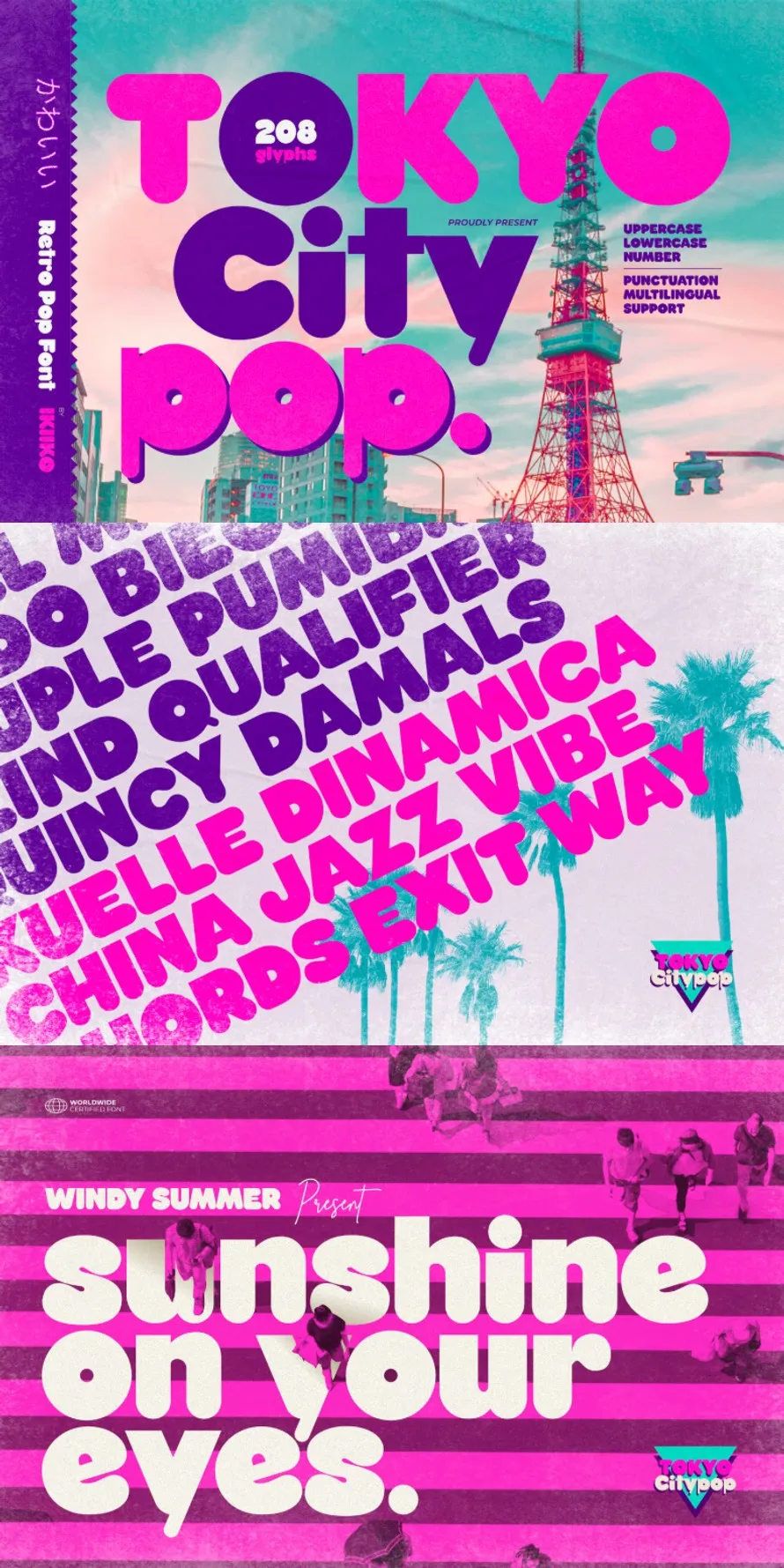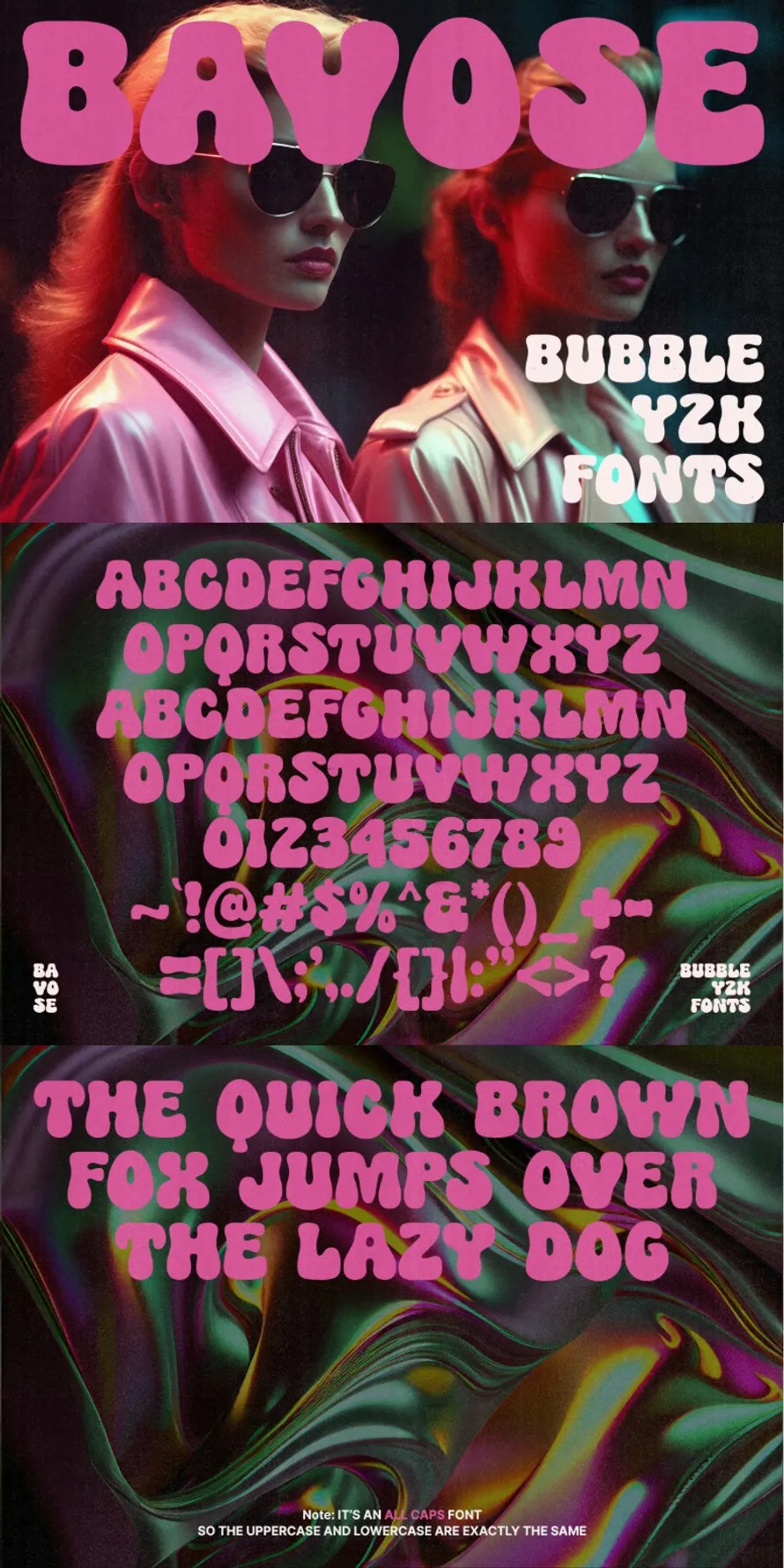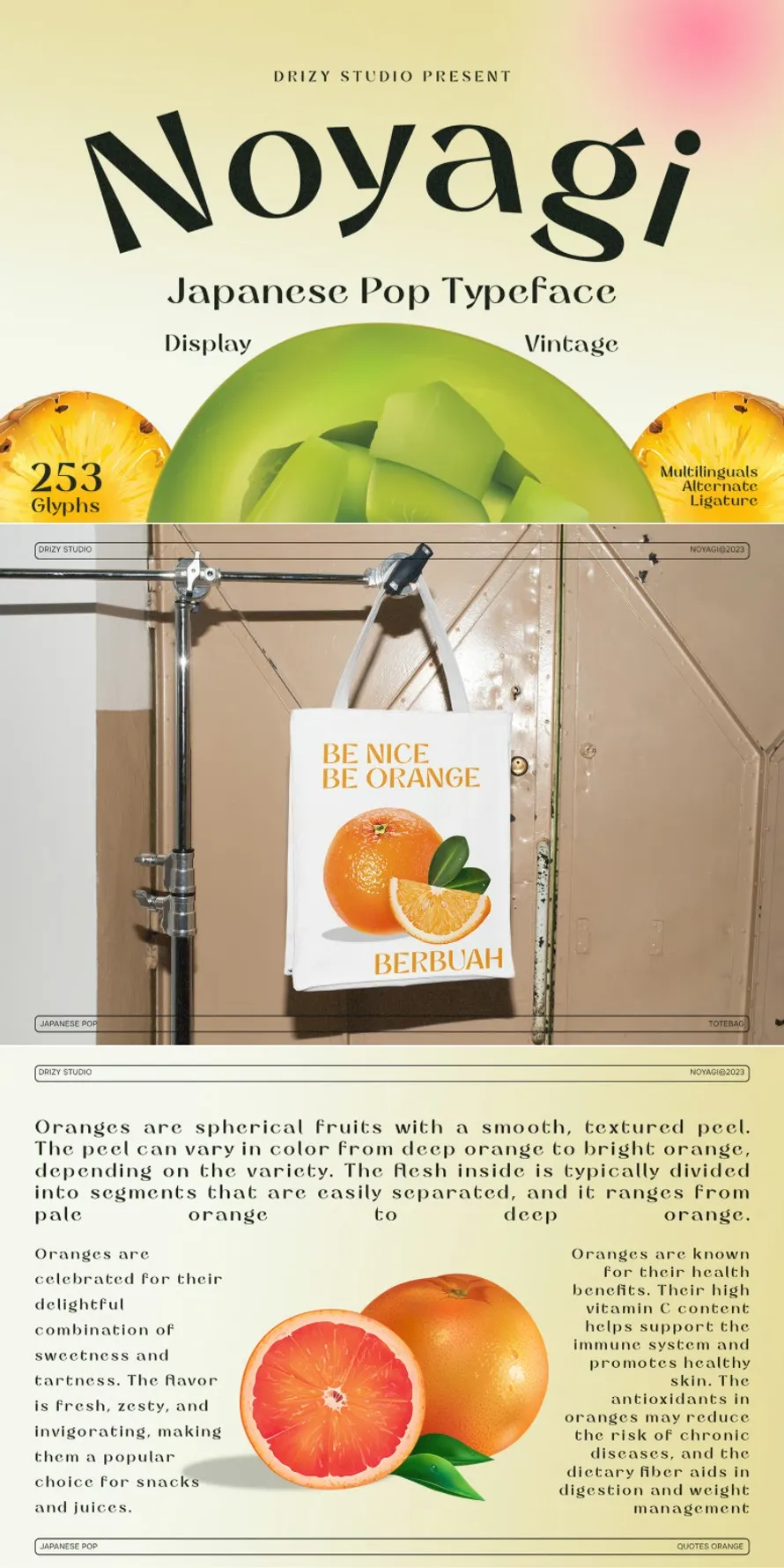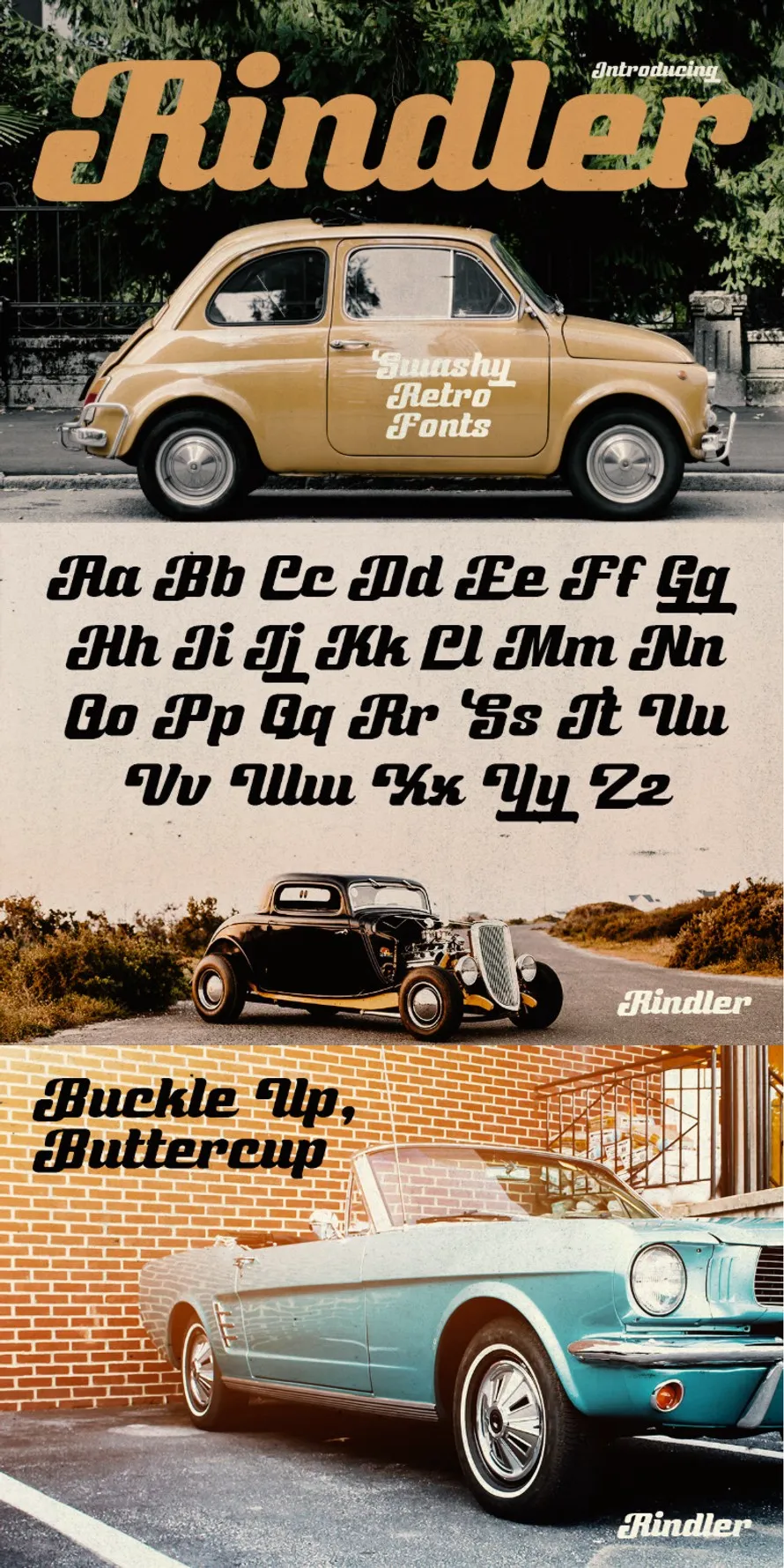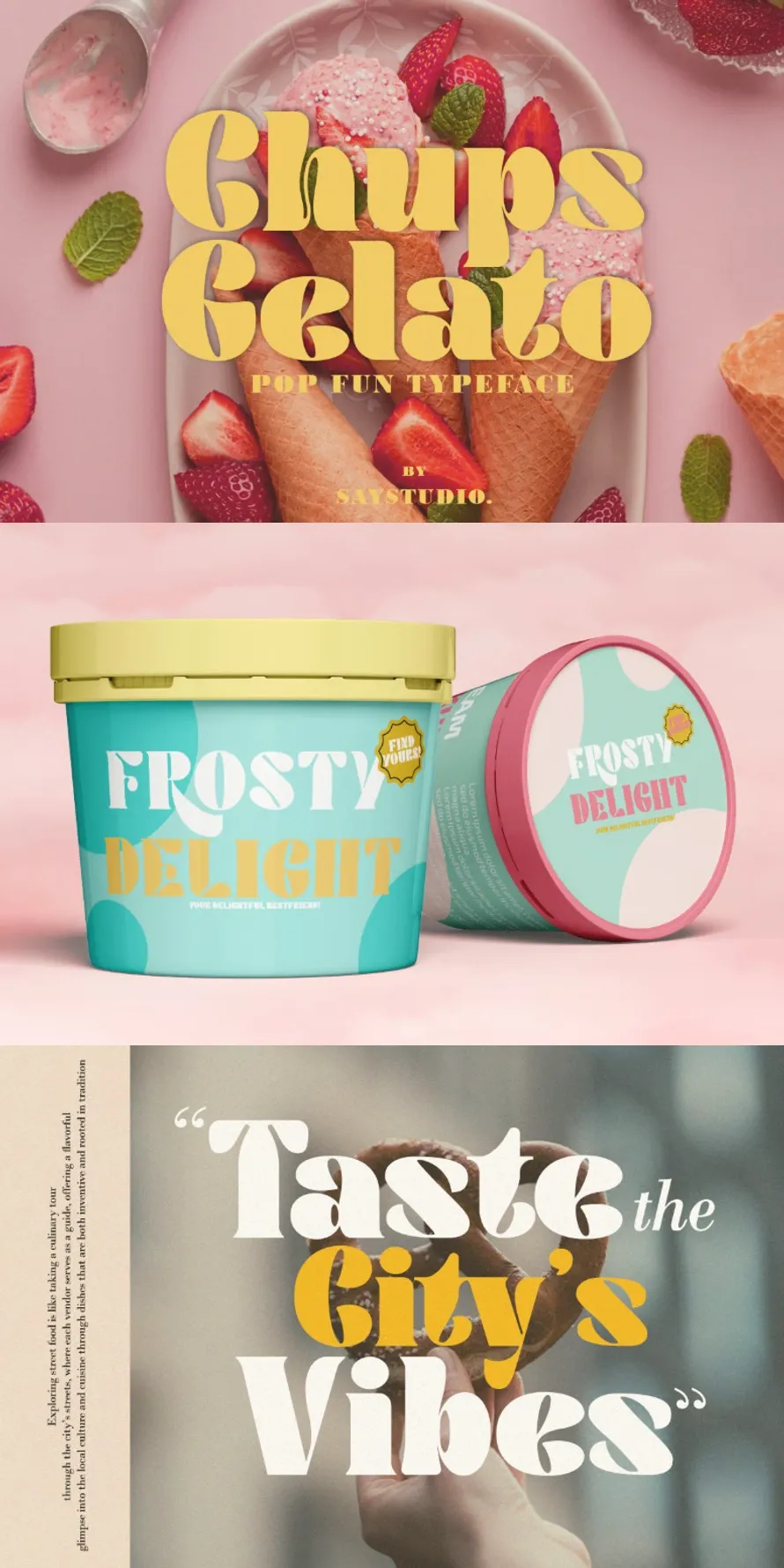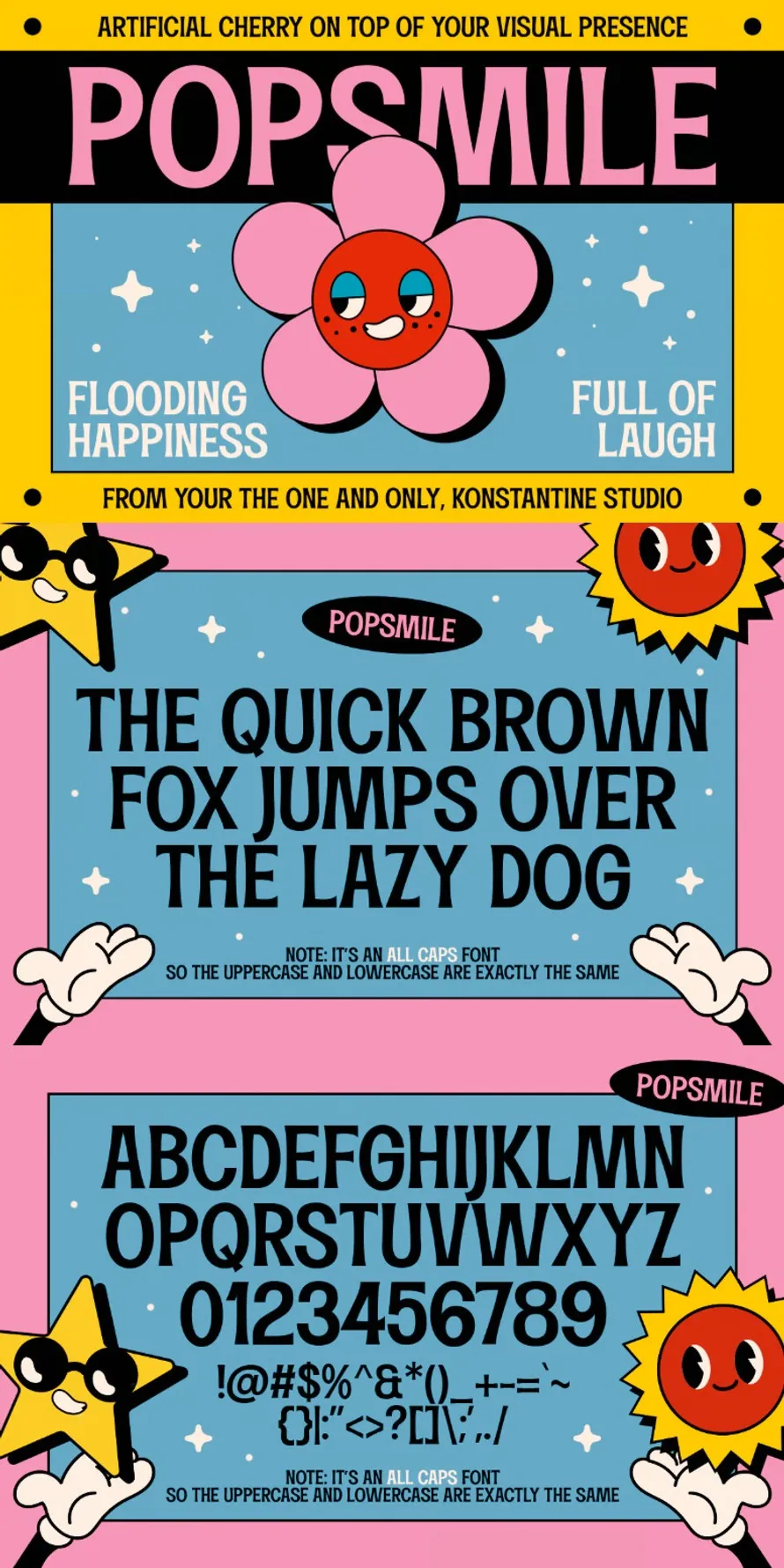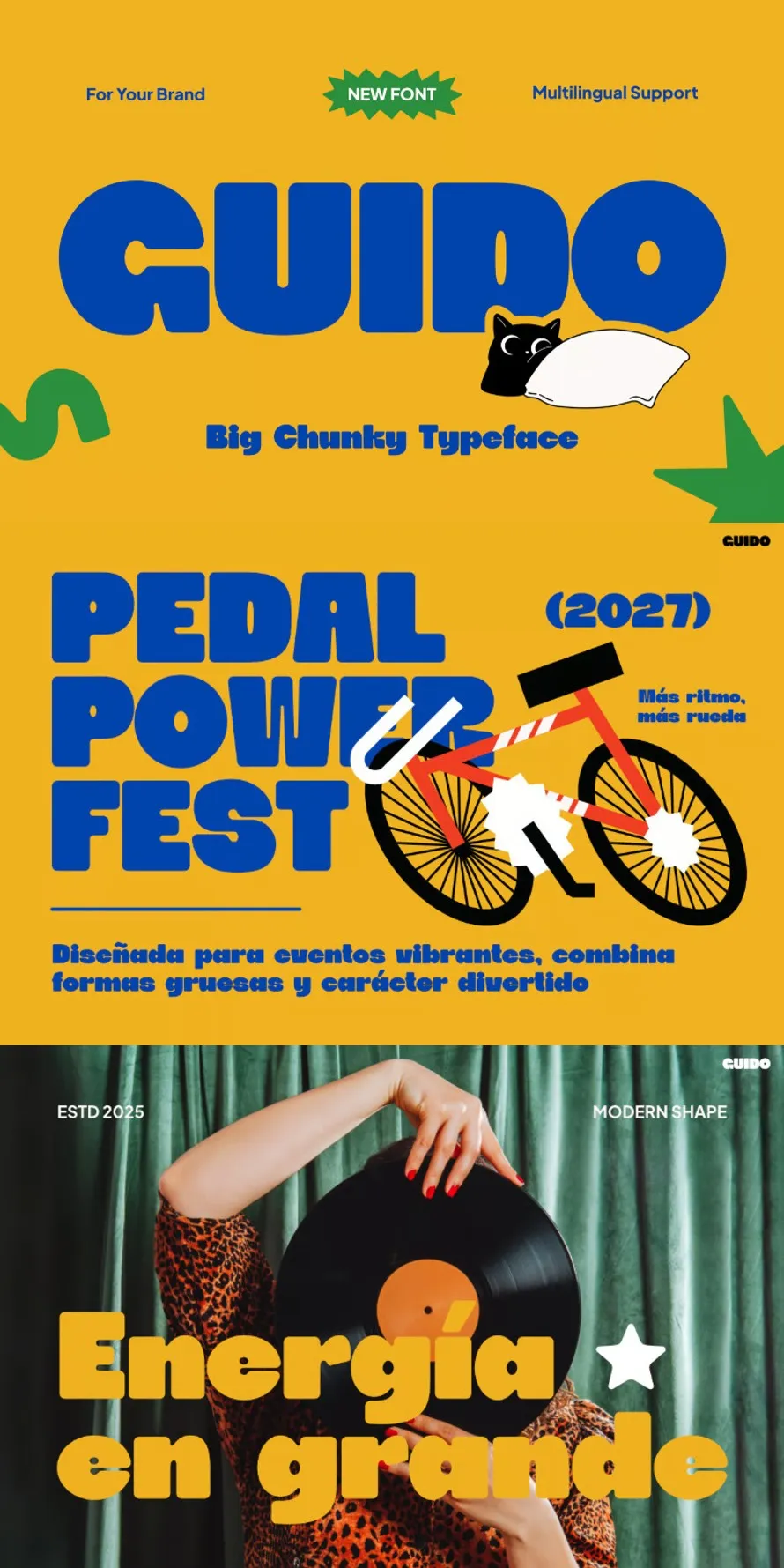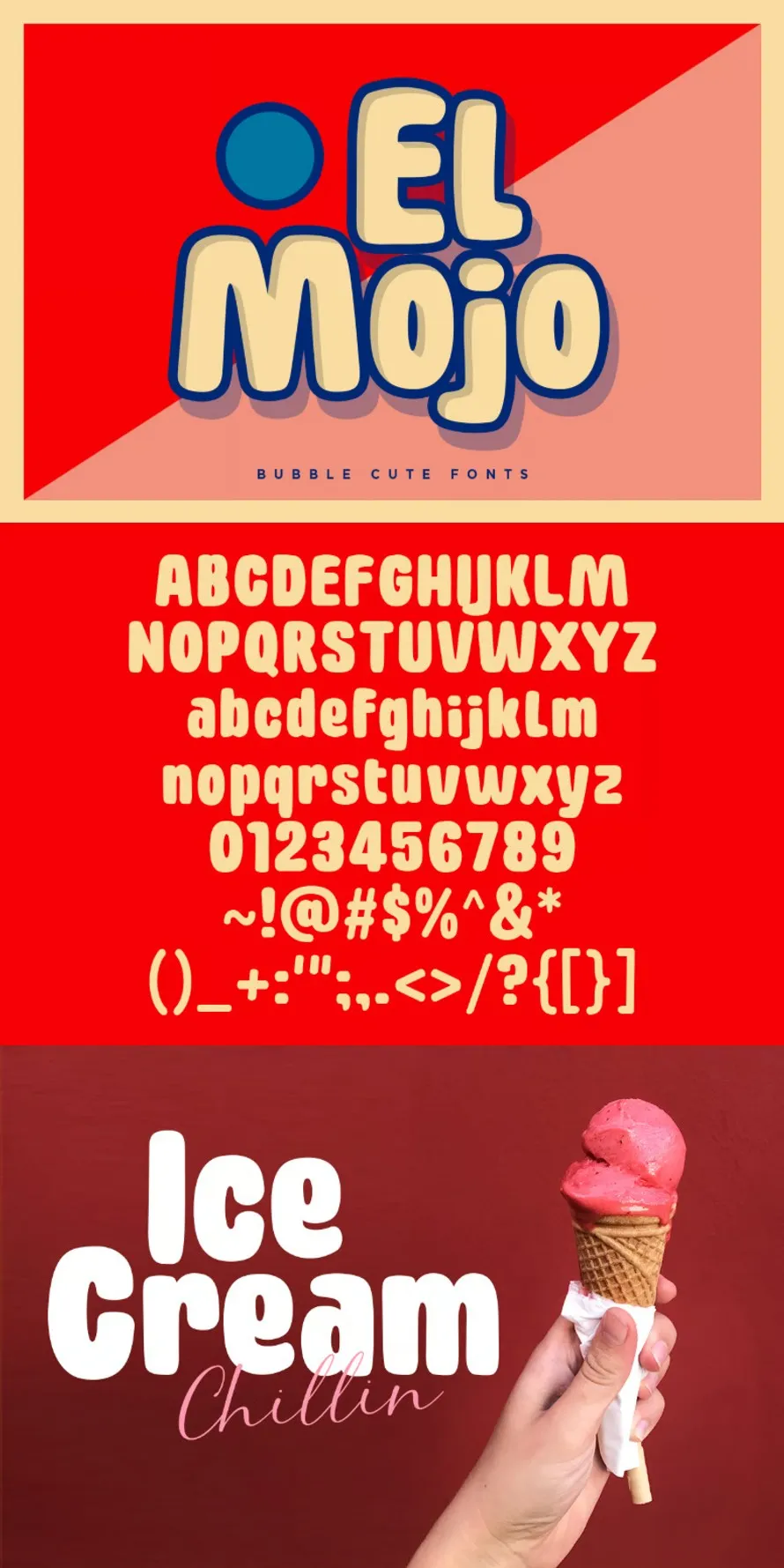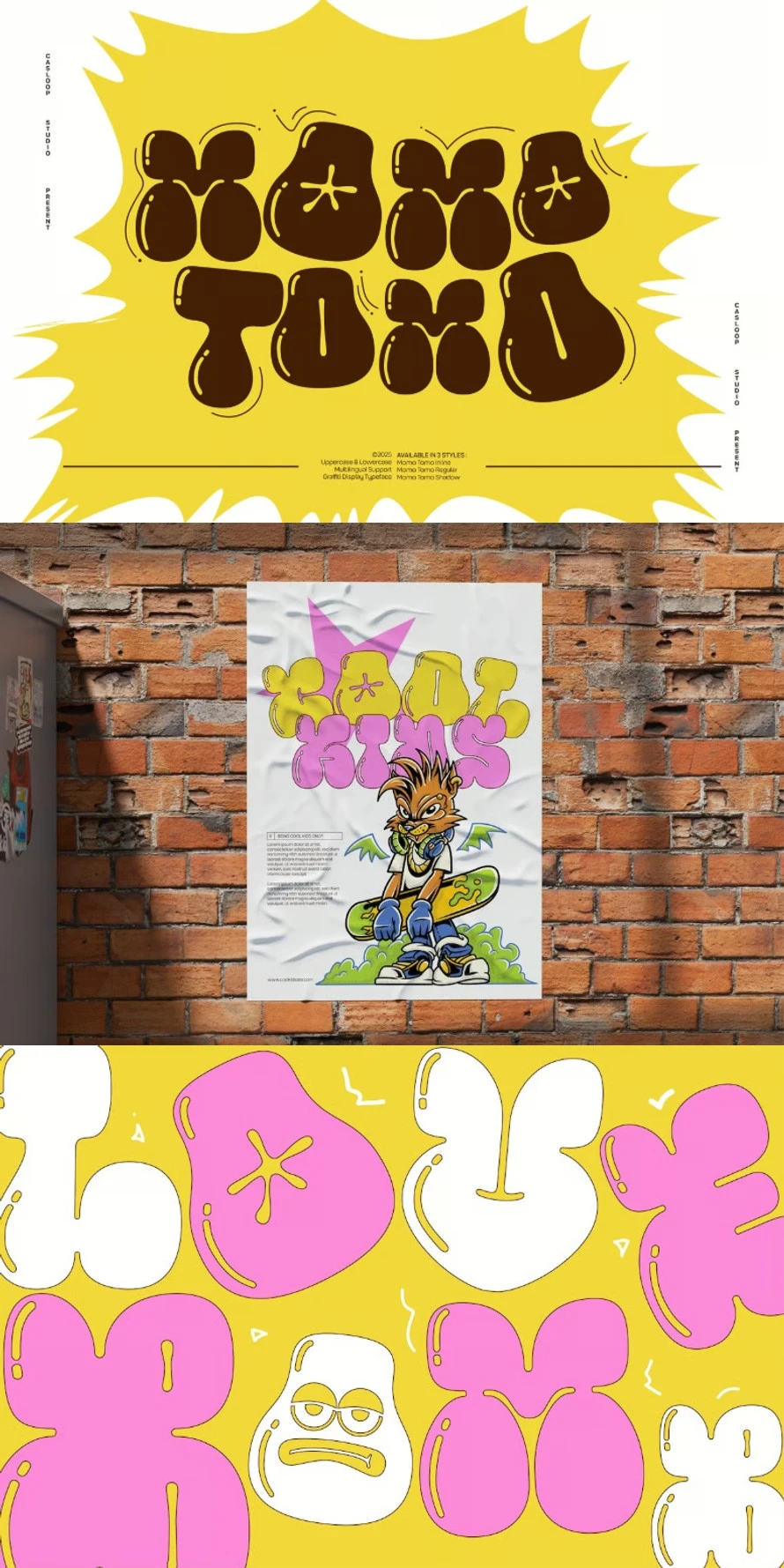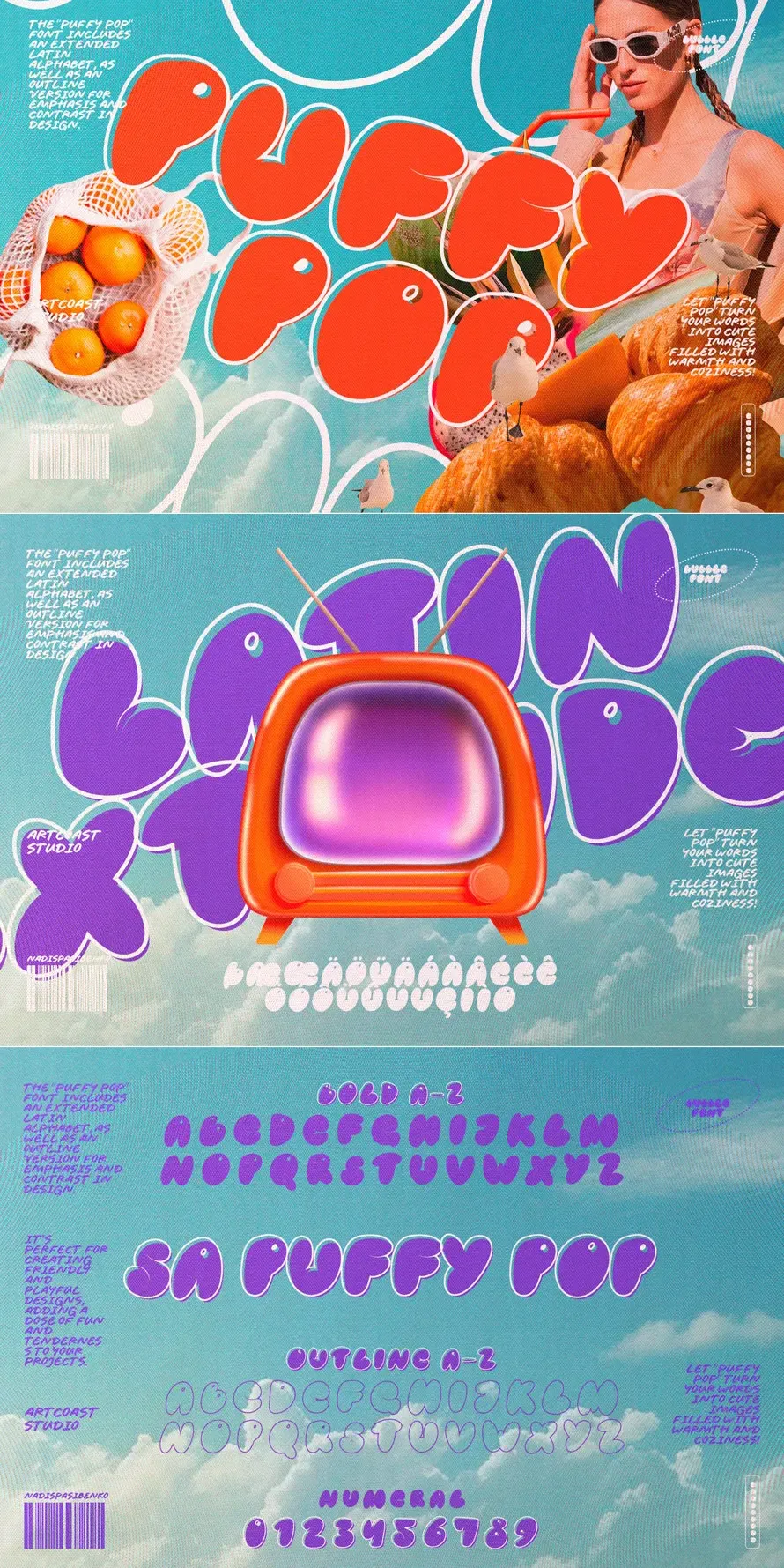
Pop fonts have been a big part of graphic design for decades. From the thick, punchy lettering on old concert posters to the clean styles you see on social media today, pop fonts and retro fonts carry a lot of visual weight. Bold fonts in particular grab attention fast, which is why designers keep coming back to them for posters, covers, and print work.
Vintage fonts bring that old-school feel, like something pulled from a 1960s magazine or a drive-in movie sign. They have character built into every curve and corner. Big bold fonts work the same way, they fill space and make text feel important.
Poster fonts are built for exactly that purpose, to be read from a distance and remembered. Whether you need something that looks like it belongs on a vintage cereal box or a modern streetwear drop, there is a font style that fits.
Pop Fonts for Retro, Vintage, and Modern Poster Design
Picking the right font can change how a whole design feels. A retro typeface on a simple poster can make it look like it came from another era. A modern pop font on the same layout gives it a fresh, current look.
The fonts in this list cover both directions, so you have options depending on what the project needs. Try a few, mix weights, and see what works. Typography does not have to be complicated, it just has to fit the job.
Afrodotz – Bold Retro Pop Fonts
Step into the Nostalgia with Afrodotz – Unlock the Power of Retro Bold Pop Y2K Fonts!
Tokyo City Pop – Retro Pop Font
Proudly present Tokyo City Pop – Retro Pop Font, created by ikiiko.
Bavose – Bubble Y2K Fonts
Are you craving some far-out font vibes? Look no further, dudes and dudettes! Introducing Bavose – your ticket to the ultimate Retro Bubble Y2K Fonts extravaganza!
Noyagi – Vintage Japanese Pop Font
Rindler – Retro Script Fonts
Revitalize your style with Rindler, the epitome of vintage elegance crafted for the modern soul.
Inspired by the sleek lines of vintage car emblems and the nostalgic glow of neon motel signs, Rindler brings you an unforgettable journey through the golden era of the 1970s.
Chups Gelato – Modern Pop Font
Chups Gelato is a Pop Fun serif font with unique basic letters and look fun . modern and classic serif font with a clear and bold look.
It’s a very versatile font and perfect for branding design, logos, greeting cards, title packaging. and other designs. Immediately use our fonts to make your work even more amazing.
Popsmile – Retro Pop Fonts
Popsmile is inspired by the retro pop culture visual back in the 70s and 80s era. We talk about packaging, posters, signs, advertising, toys, and anything classic and playful stuff back in the day.
Guido – Retro Pop Display Font
Guido is a playful bold display typeface for eye-catching branding and vibrant visuals, designed with chunky rounded shapes, soft curves, and low contrast strokes that create a friendly and expressive tone.
The font carries a joyful and energetic vibe, making it perfect for kids-related designs, food packaging, posters, and social media graphics. Its rounded geometric structure gives it a retro pop feel, while still staying clean and highly readable.
El Mojo – Bubble Pop Bold Fonts
MOMO TOMO – Graffiti Pops Bubble Font
Puffy Pop Bubble Font
Drynida – 90’s Pop Headline Font
Drynida is a bold display typeface inspired by 90’s pop culture, playful graphics, and eye-catching headline designs. It features rounded shapes, chunky proportions, and a fun retro personality that instantly grabs attention.
Munchy Pop Fonts
Munchy Pop is a playful and energetic font duo that brings together bold personality and smooth elegance in one vibrant package.
Designed to stand out, this duo combines a chunky, eye-catching display style with a flowing script that adds contrast and charm.
Blitzkrieg Pop Fonts
CA Blitzkrieg Pop is a dynamic fusion of serif and sans-serif styles, fueled by the raw energy of the punk rock era with a dash of Raygun-inspired flair.
Emerging from the ’90s vibe—think grunge typography, edgy music mags, and rebellious attitude—it’s loud, bold, and unapologetically expressive.
Sprout Pop – Bold Retro Display Font
Loli Pop Fonts
Is a christmas display font with distinctive handwritten characters perfect for branding projects, logos, clothing designs, media posts, advertisements, invitations, stationery, and any project who need handwritten dishes.
POPFUN Pop Fonts for Fun
POPFUN is a display typeface with playful taste. It comes in two different styles, Normal and Extrude so you can use them to your heart’s content.
Popboy Pop Fonts for Posters
Popboy is a playful typeface with big, bold fonts perfect for fun quirky design jobs! This font can be used for anything like T-shirt designs, phone cases, mugs, and more! Get creative!
Ridie – Pop Display Font
Ridie is a display typeface. It’s bold, fun, and playful. Perfect for you who need a pop style in your design.
Gangmo – Korean Pop Display Font
Street Pops – Graffiti Typeface
Introducing of our new product the name is Street Pops Graffiti Typeface. Street Pops inspired by graffiti style with a fun theme very good for graffity poster, Hip Hop music, kids poster, flyer, childrenbook, cartoon, comic etc
Jelly Pop – Food Logotype Display Font
Jelly Pop is a vibrant and expressive display font. The thick letterforms give Jelly Pop a strong visual presence, making it perfect for headlines and standout designs.
Unicorn Pop
Unicorn Pop is a cute display font that is inspired by a lovely magical unicorn, make it very perfect to use for quotes, logotype, badges, labels, packaging, t-shirt, or simply use it in your next design project.
Chubby Popz – Fun Display Font
Chubby Popz – Fun Display Font is designed to bring a playful and expressive tone to your creative work. With its rounded shapes and lively character style, this typeface is ideal for projects that need a friendly and eye-catching appearance.
The balance between bold structure and soft curves makes it suitable for both digital and print applications.
Chido Pop – Playful Retro Font
Chido Pop – Playful Retro Display Font
Bubble Dope – Groovy Display Font
Bubble Dope – Groovy Display Font is a font with distinctive handwritten characters perfect for branding projects, logos, wedding designs, stationery, and any project who need handwritten dishes.
Poppis Pop Fonts for Logos
Cream Whip Script – Bold Retro Brush Font